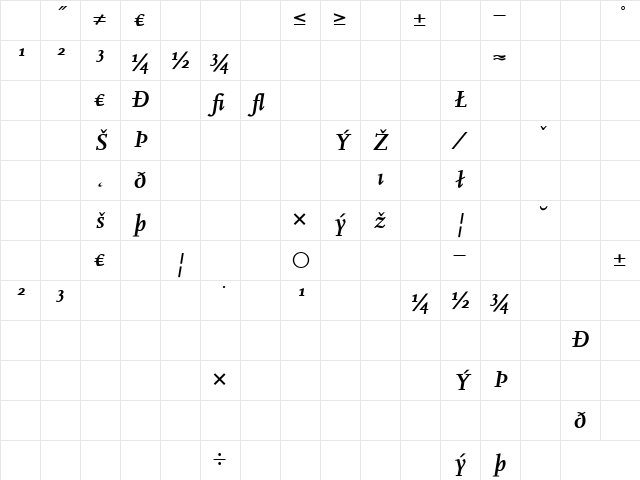
Scala Bold Italic
Design Context for Scala
Scala is a composed and adaptable typeface that performs quietly and consistently across a wide range of design contexts. The slanted form adds forward momentum and visual energy. Its bold stroke weight gives it real presence on the page.
Pro Tip: Use Scala for emphasis, pull quotes, and subheadings where its slanted energy can add rhythm to the layout.